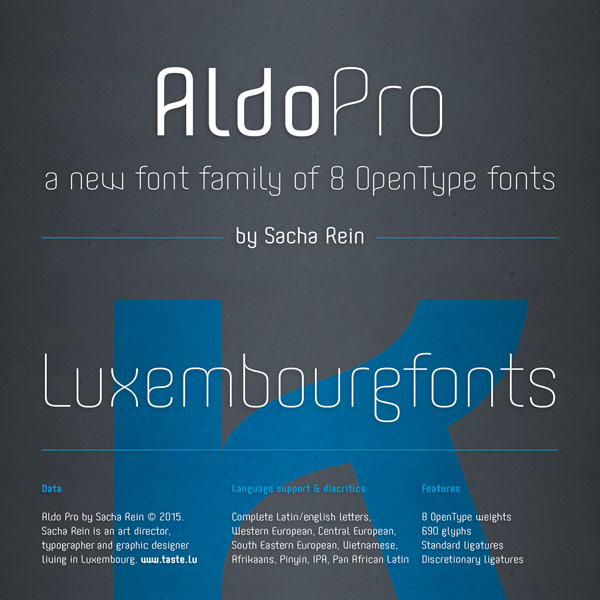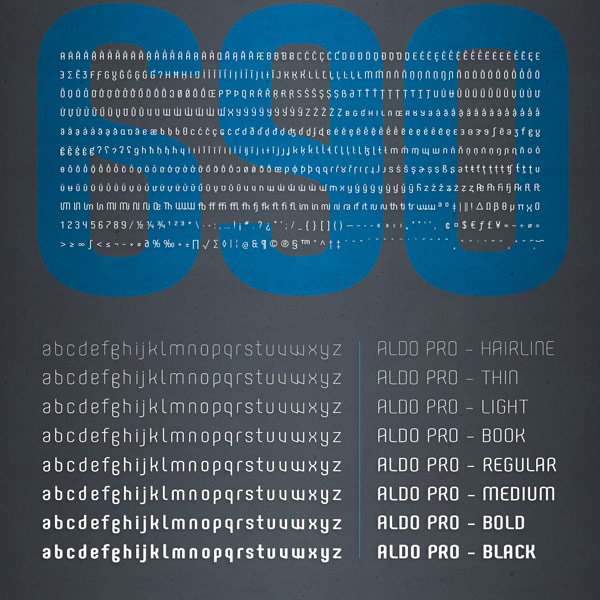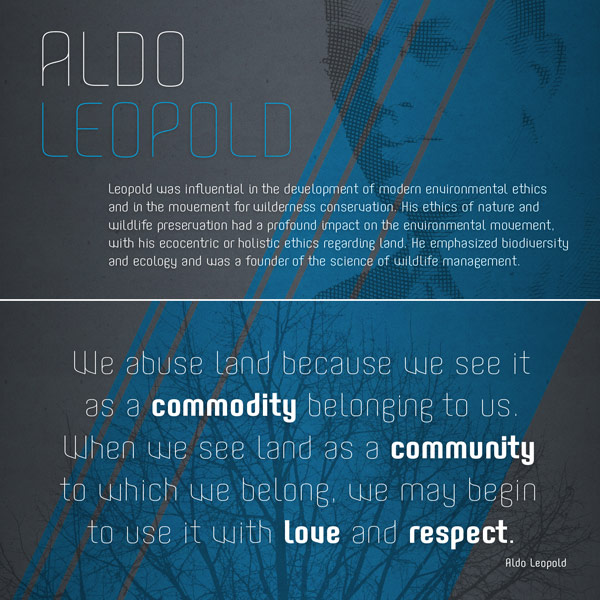
Aldo Pro, a new type family of 8 OpenType fonts created by Sacha Rein.
The Aldo Pro font family originated from the free Aldo semi-bold typeface published on dafont.com in 2007. Sacha Rein, a Luxembourg based art director, typographer, and graphic designer has expanded this unique display font into a full type family of 8 weights (ranging from hairline to black). Aldo Pro is now a functional and distinctive sans serif family for different typographic needs, whether advertising, branding, web and print design.
With extended 690 latin characters and additional OpenType features, the Aldo Pro font family is well suited for professional needs. Sacha Rein slightly reduced the x-height in order to make it less condensed and enhance its legibility. Just follow the link below to get additional information on this new sans serif font family.